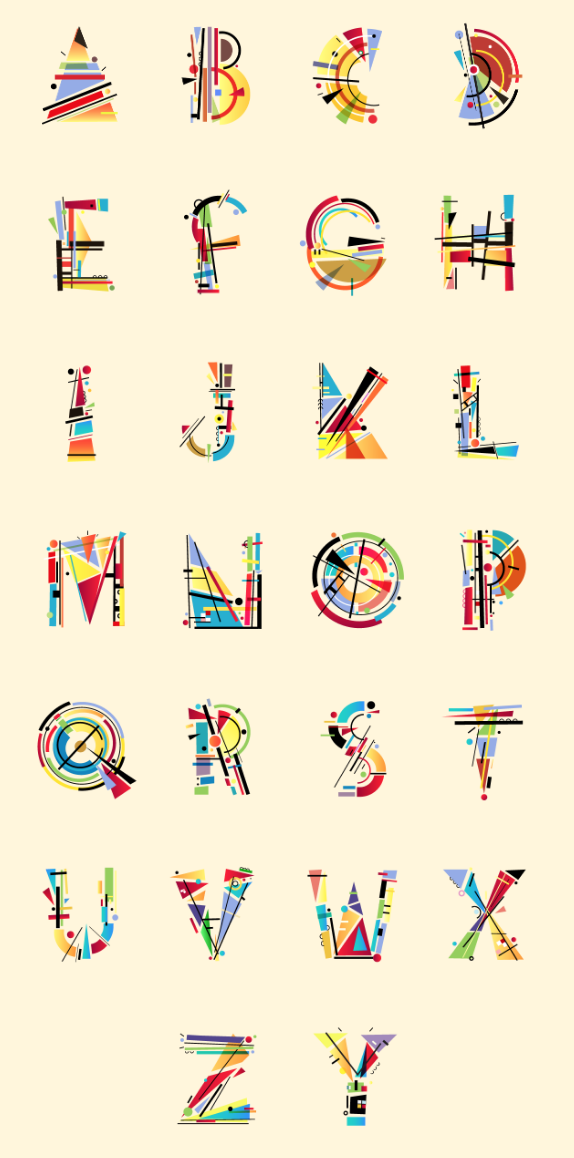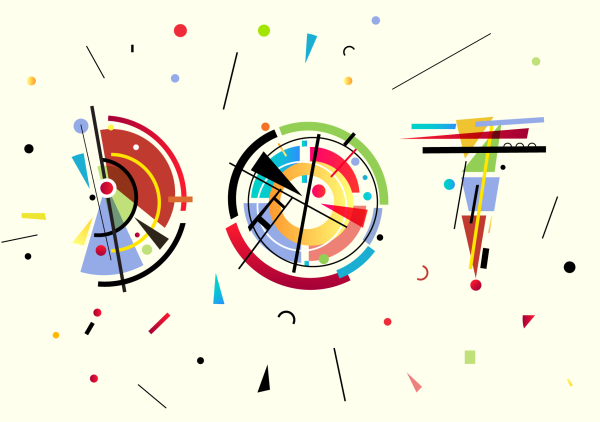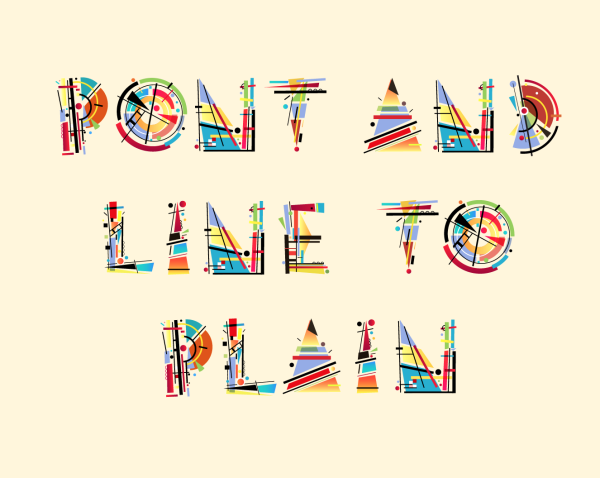
KANDINSKY
Vassily Kandinsky was an influential russian painter and art theorist.
He is credited with painting the first purely abstract works.
This is my type inspired in his art.